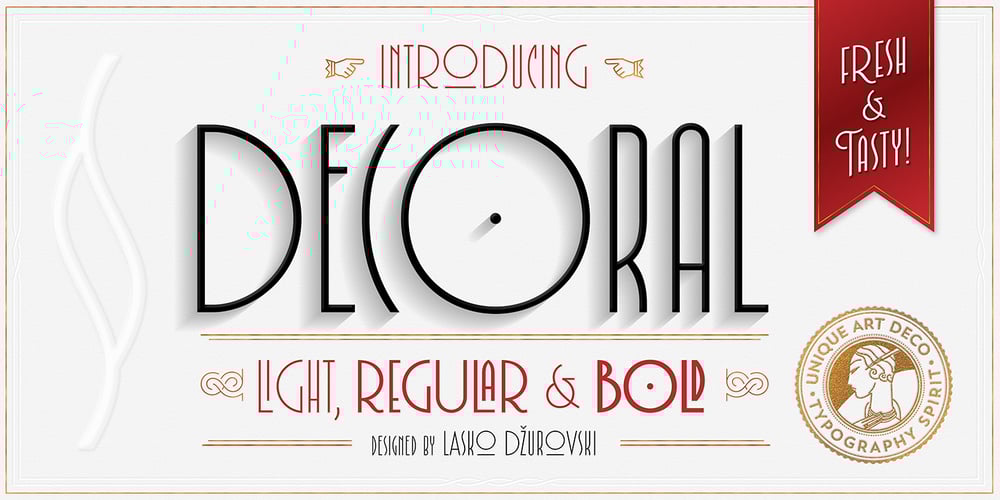
Decoral Font Family was designed by Lasko Dzurovski and published by Totem. Decoral contains 3 styles and family package options. Decoral has developed its character from the Art Deco period typography and is reinterpreting it with a modern approach. This typeface is a friendly and flexible family that is fun to use. It’s consisted of 3 weights with over 650 glyphs each. Decoral also comes with special stylistic sets and swash characters that allows the user to be even more creative and playful with the type. These open up many different possibilities that certainly will spice up your design. Decoral will satisfy all your typographic needs, from book jackets to monograms, from packaging to logos, and even wedding invitations—timelessly elegant, with a distinctive flair that exudes Art Deco typography in a fresh, modern way. The wide selection of titling alternates and ligatures make copyfitting a delight.